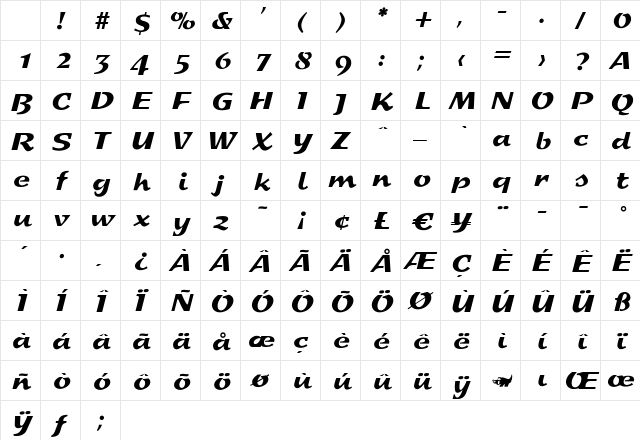
Complete PamelaBecker Regular glyph index. Displaying only characters natively supported by PamelaBecker Regular font.
PamelaBecker is a composed and adaptable typeface that performs quietly and consistently across a wide range of design contexts.